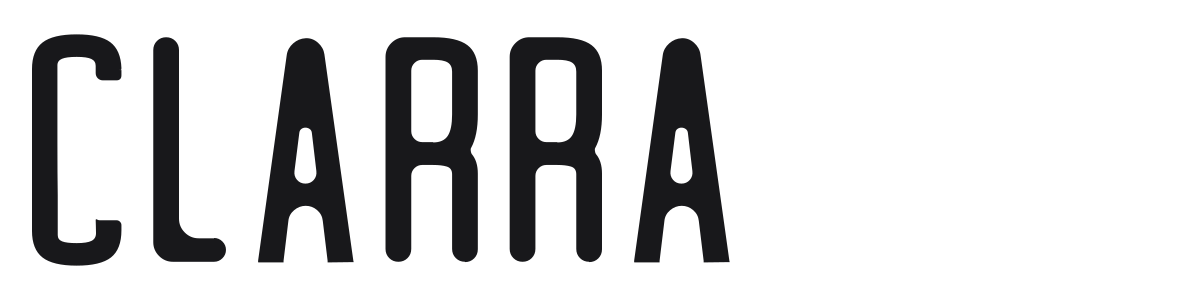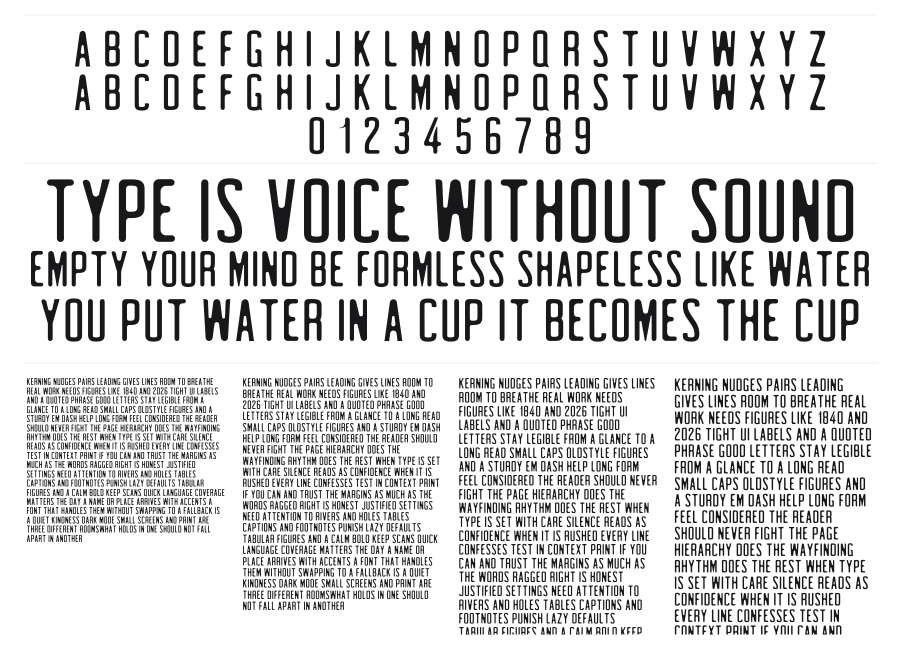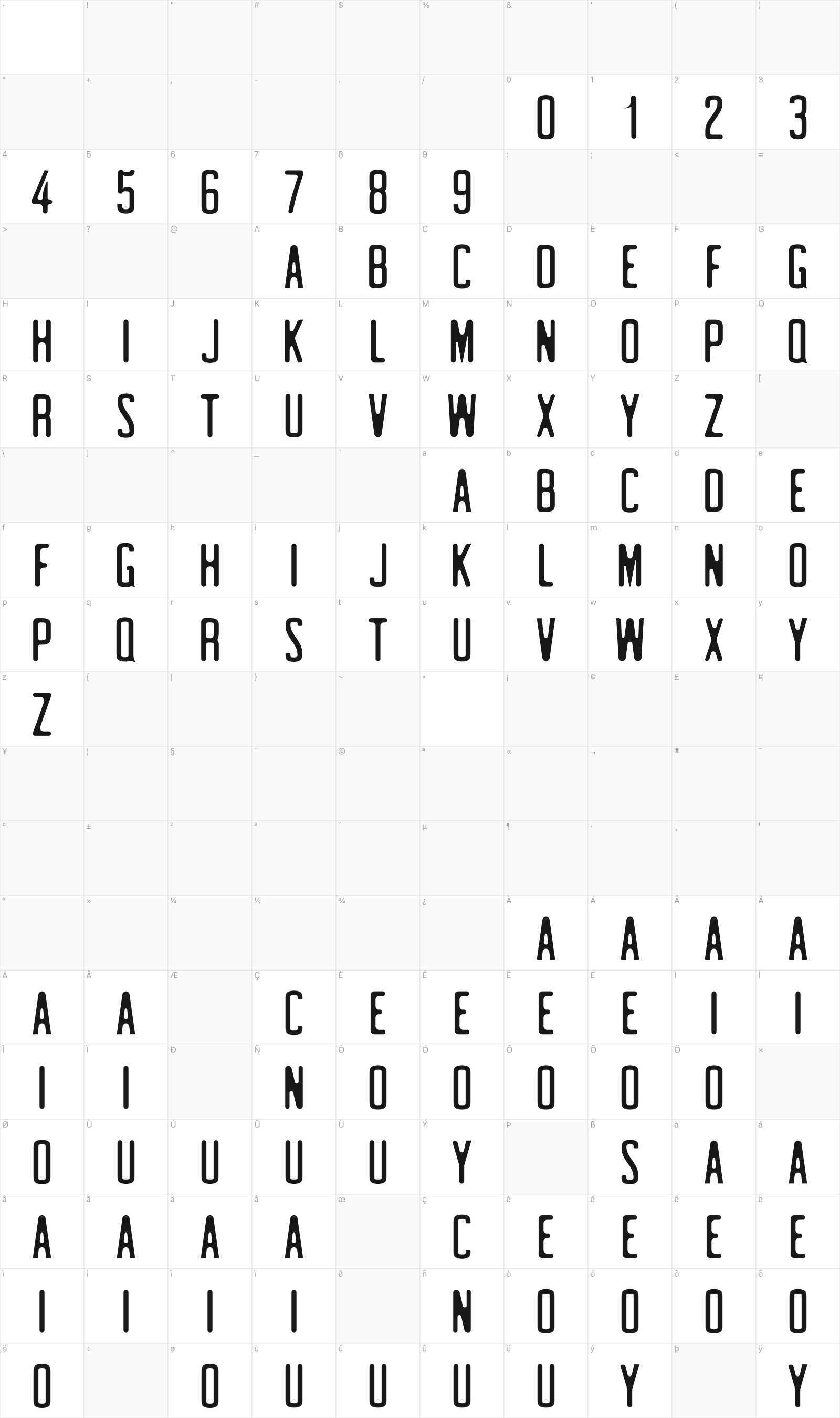
Clarra
Clarra is a tall, condensed geometric sans with bold weight and an architectural rigidity that commands attention. Subtle notched cuts at stroke junctions give the characters a distinctive signature without straying from the overall geometric system. It reads clearly at large sizes and carries strong associations with fashion, urban culture, and bold editorial work.